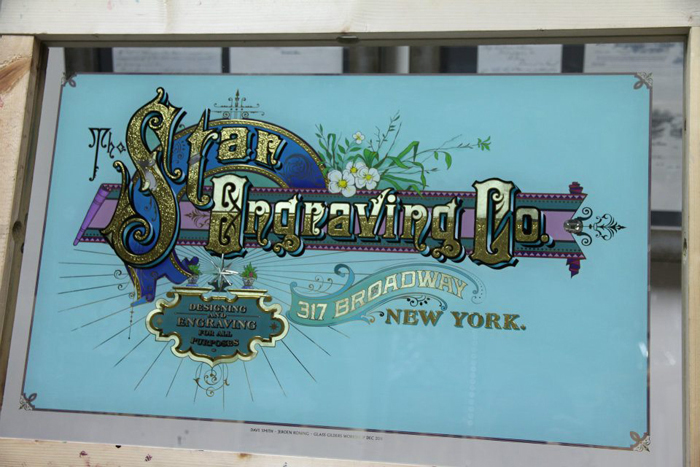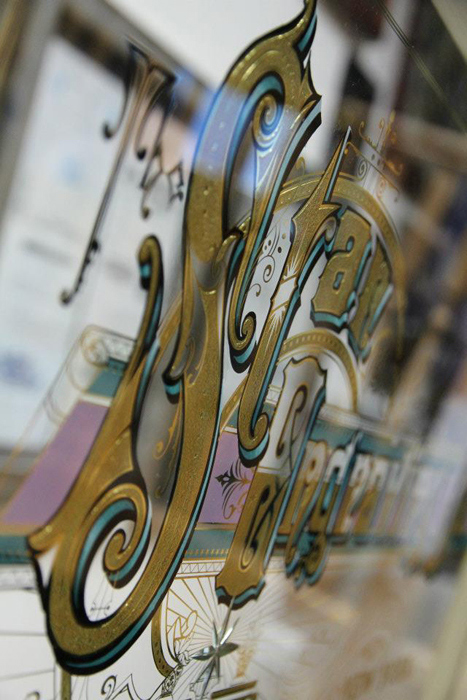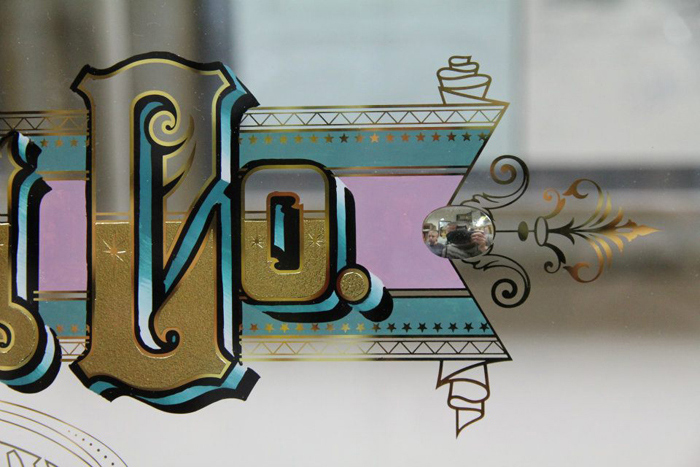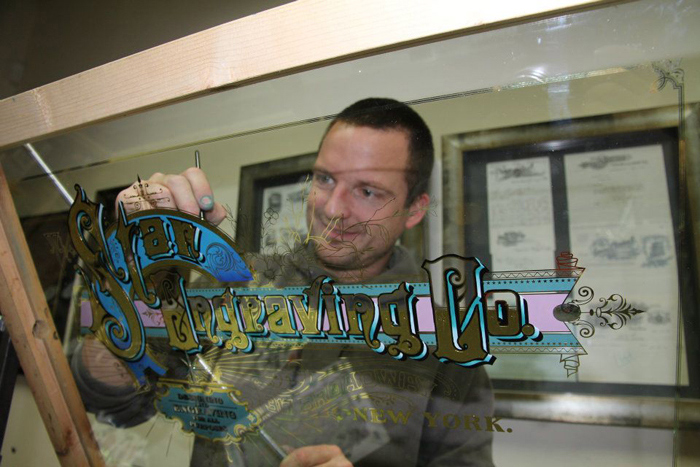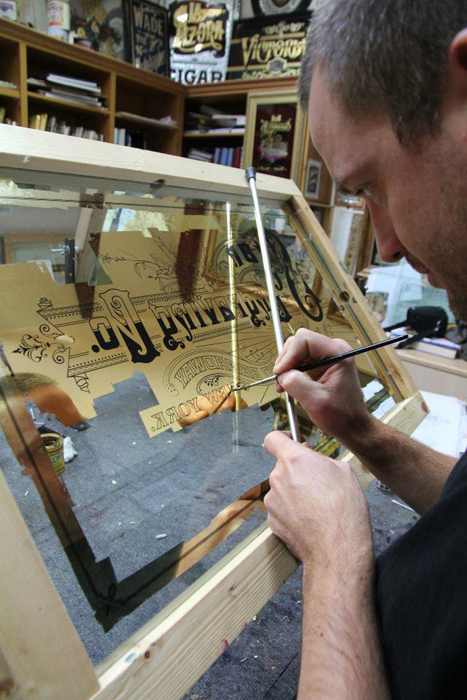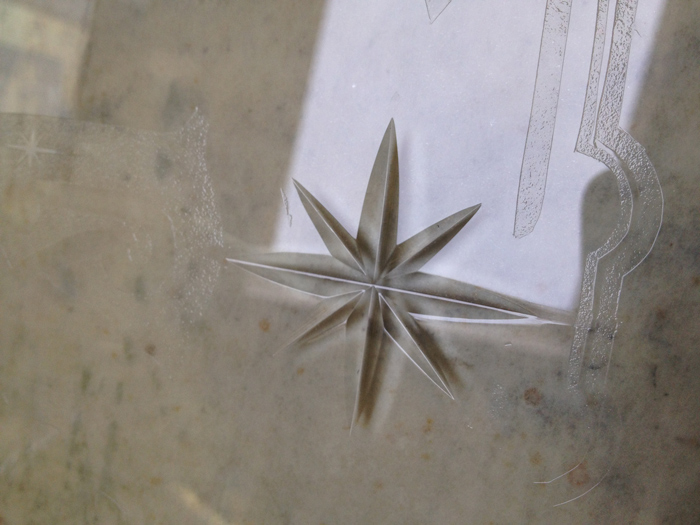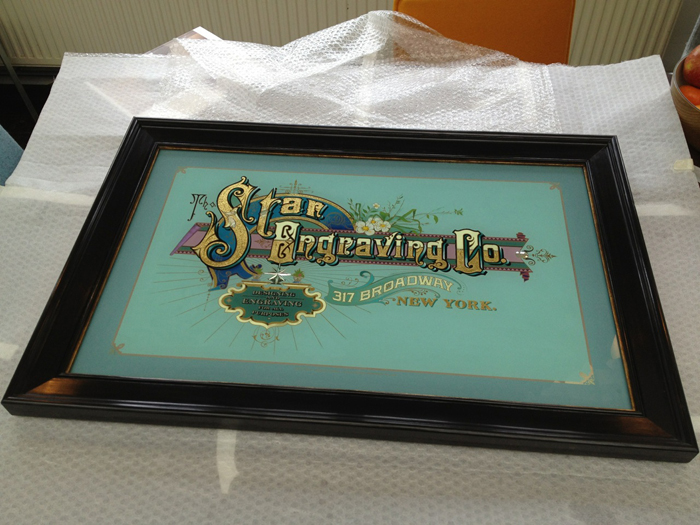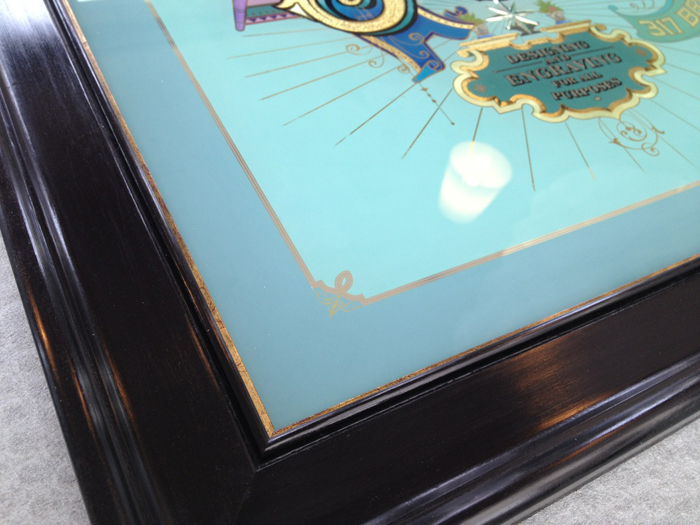
Here are the pictures of the five day workshop I did last week with David Smith in Torquay, Devon in the UK.
The weeks before Dave started vectorizing the artwork of The Star Engraving Co. letterhead. It was screaming to get worked into a glass piece as Dave stated it. I could help him with putting some of the artwork in vector as well. That way I could get grip of the art and begin thinking about a color scheme.
So when I entered the workshop the Star Engraving Co piece was already put up a screen ready for printing.
After printing we started with embossing the star and the punti. I tried it out and found out it was very difficult to place the glass in the exact place where the embossing had to be done. Thanks Dave for cutting the star so spot on. It stands out and makes the piece shine bright…
All basic technics of signwriting and glass embossing were carefully explained and shown. Working along side of a real master of the craft was very inspiring!
So now the rest is up to me to master it myself…
Here's a picture of the Star...
Is that leafed gold in pic 05?
Hi Jeroen. Glad to see you made it back in one piece. Very much enjoyed your company this last week. Jeroen is a master at design , he took to reverse glass like a duck to water. We got that colour scheme worked out just in time.. fun project and good company.
Thanks guys, all gold leaf and a painted 3d in pic 5 Anthony.
This looks great in the kitchen area Jeroen. Your girlfriend must be happy, I remember you saying about matching up colours! Perfect match.